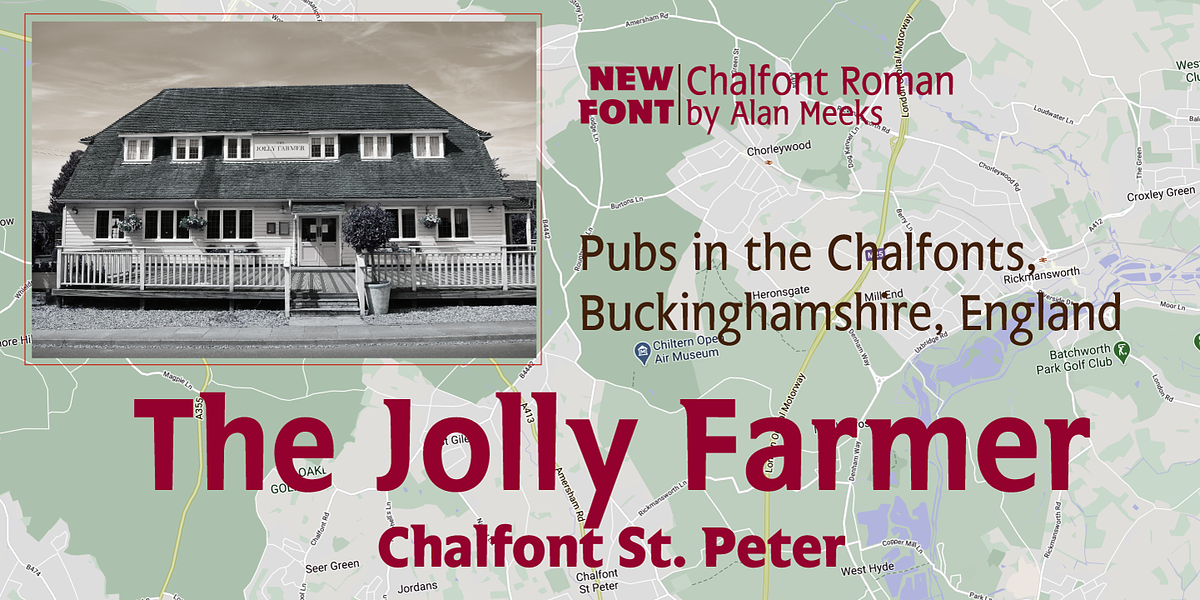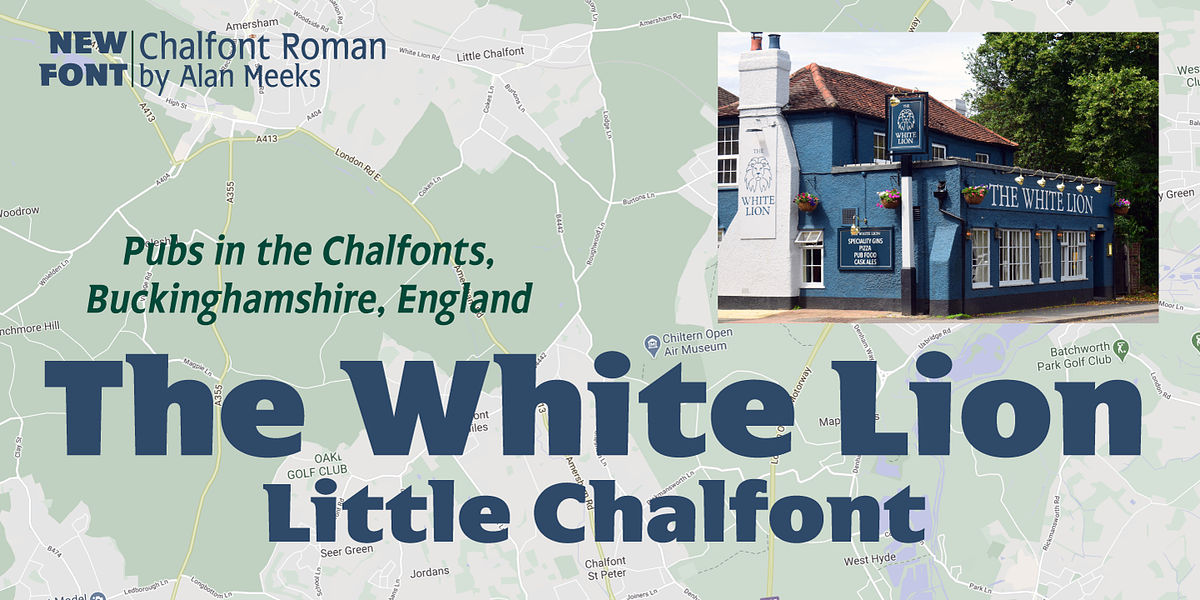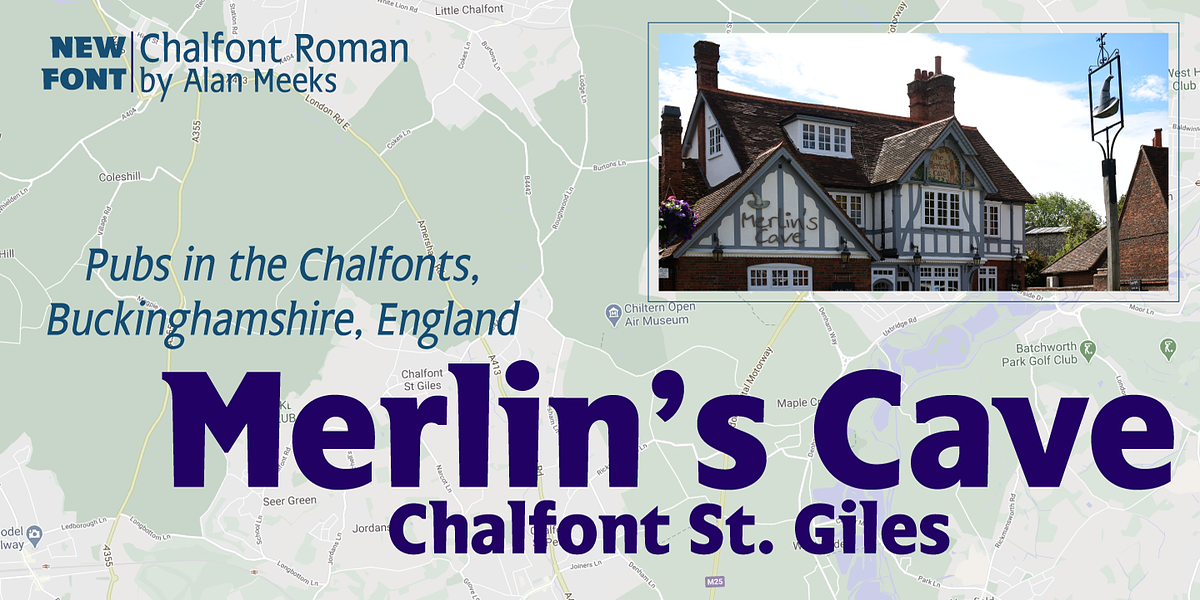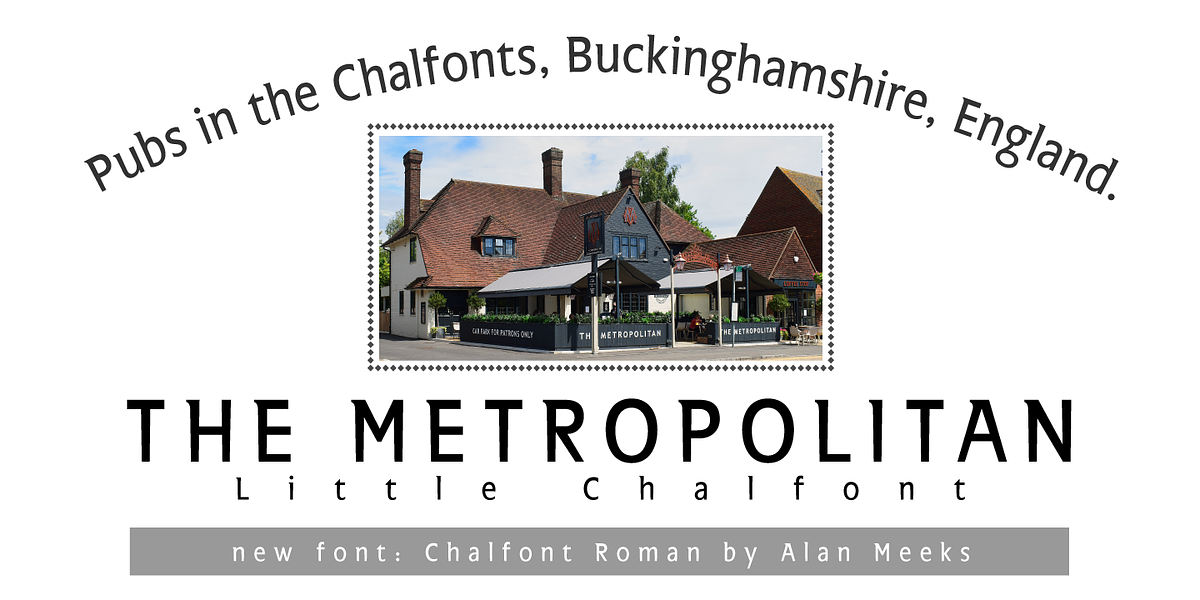
Chalfont Roman
Chalfont is a display serif font characterized by its distinctive top-heavy design. This effect is subtle when viewed straight on but becomes more pronounced at angles. The font features a serif accent on the upper left corner of each character, further emphasizing the top-heavy aesthetic. Chalfont also includes a set of non-ranging numerals.